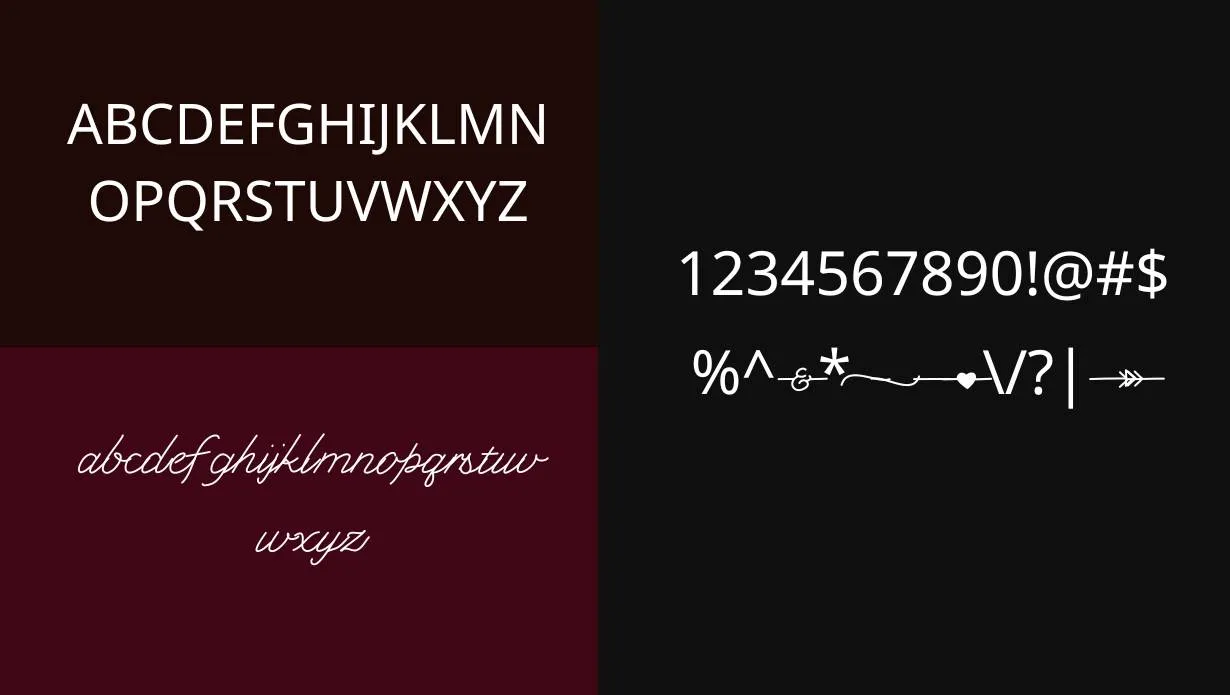
KL Cupid Font brings a playful and lighthearted tone to design projects. Its whimsical charm makes it perfect for children’s books, greeting cards, and logos seeking a fun and inviting look.
| Name | KL Cupid Font |
| Designer | Kitaleigh Boutique |